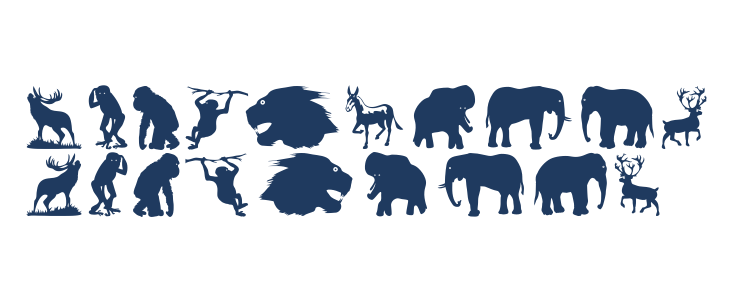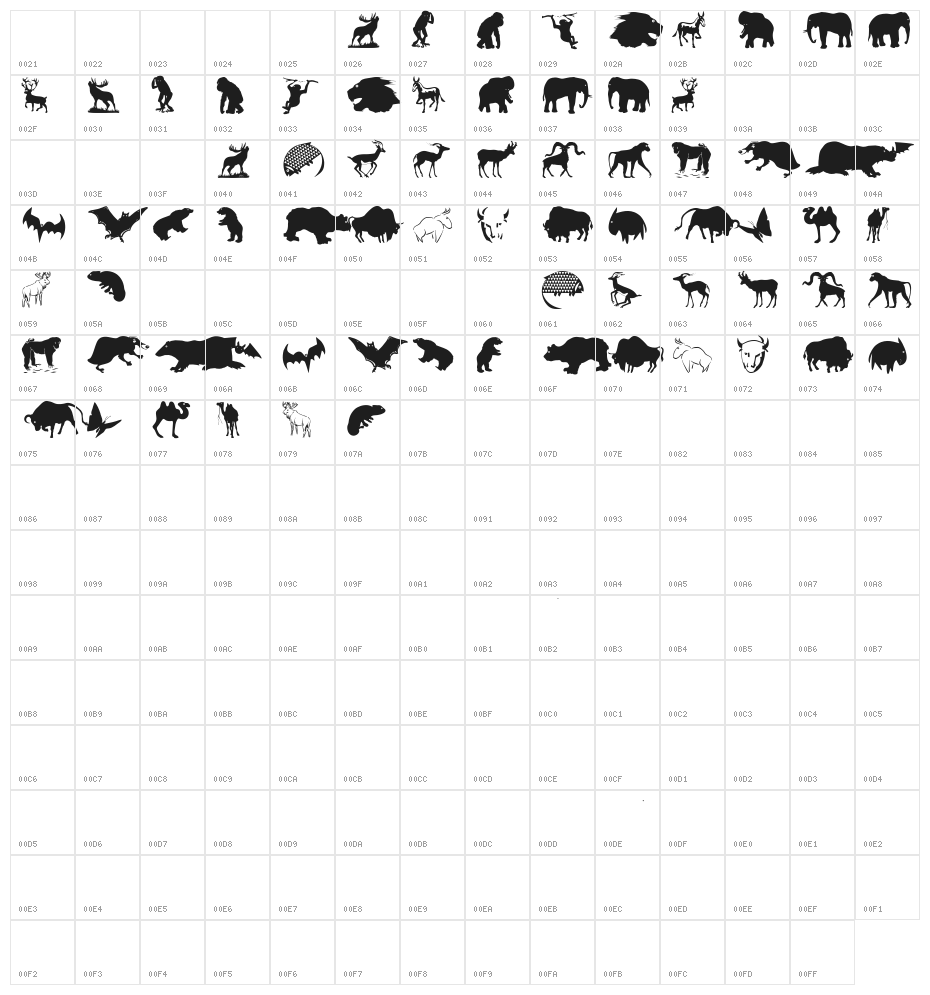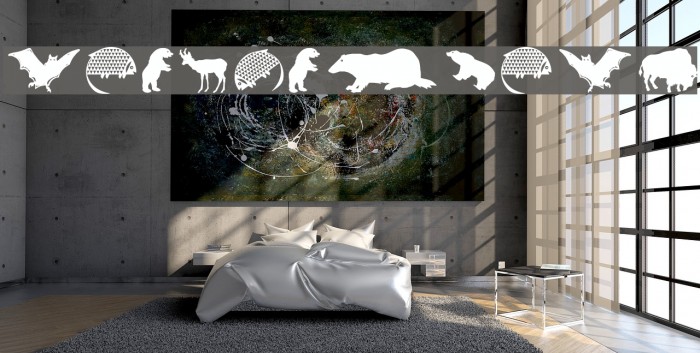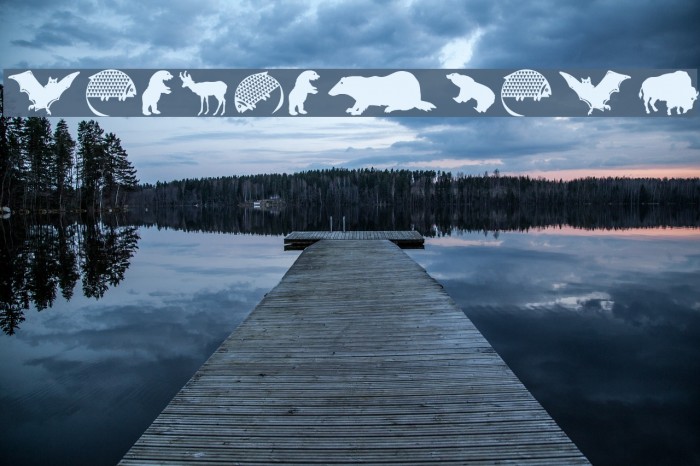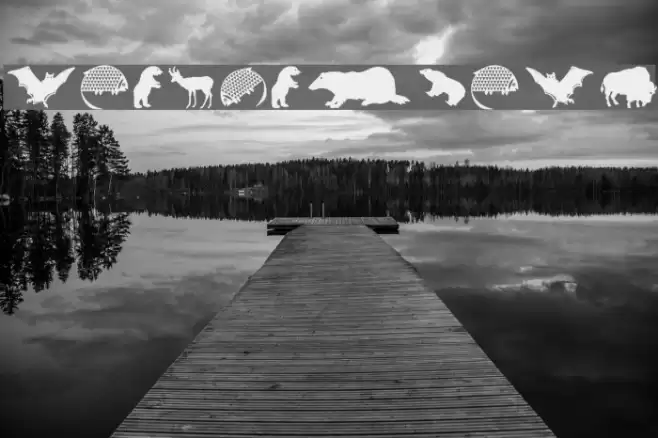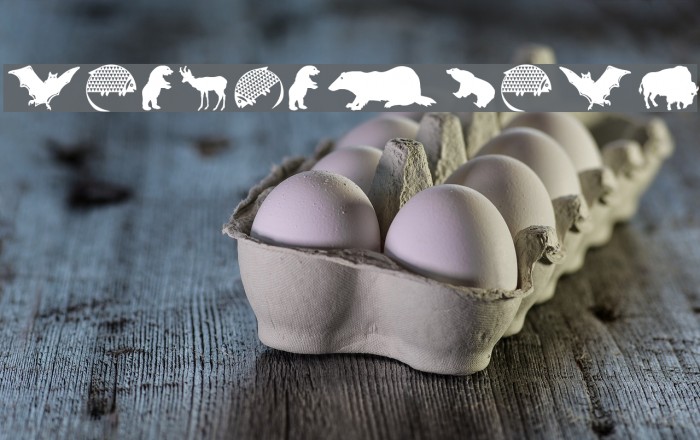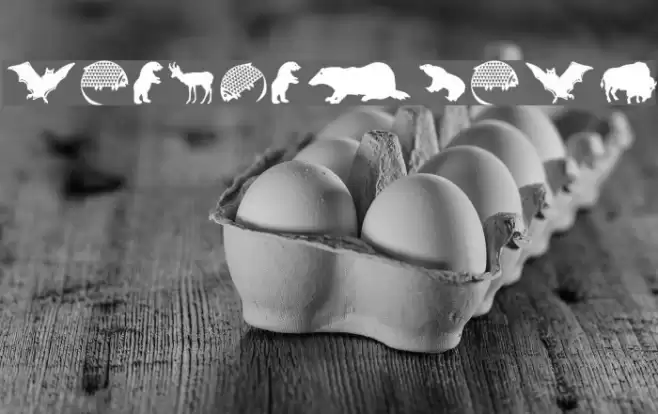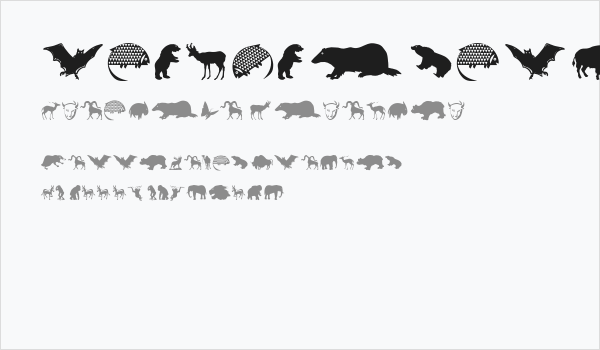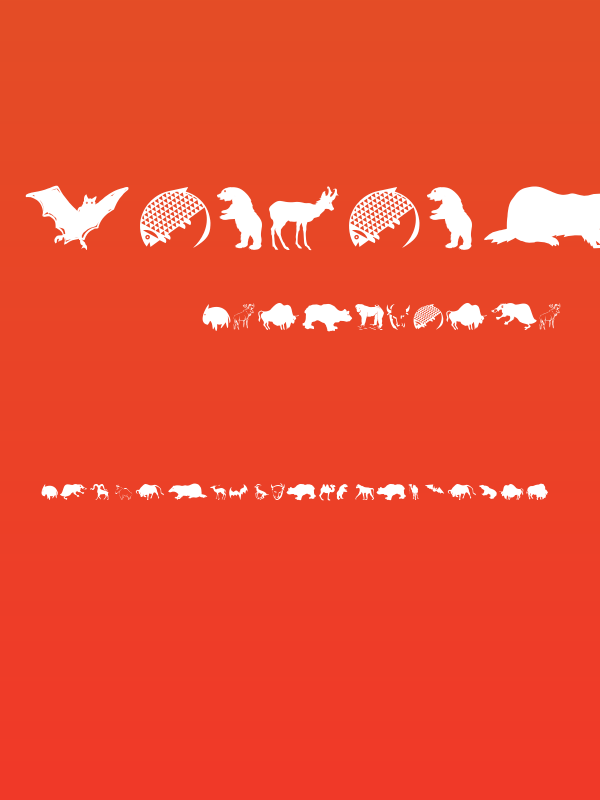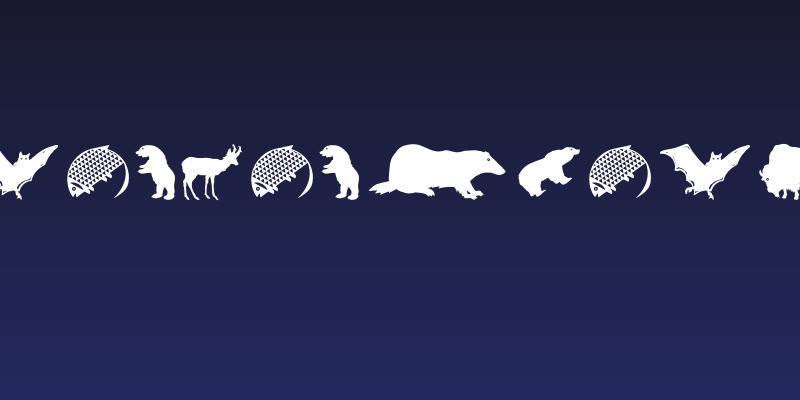
LandAnimals Font
LandAnimals Description
A collection of bold, high-contrast animal silhouettes rendered in a consistent, solid black style, featuring a variety of mammals, birds, and bats with clear, recognizable shapes and minimal detail.
| Overall Style | Decorative, Modern |
| Use Case | Icons, Logos, Educational graphics, Posters |
| Proposed Projects | Educational materials, wildlife infographics, logo design, signage, childrenΓ’β¬β’s books, and themed posters. |